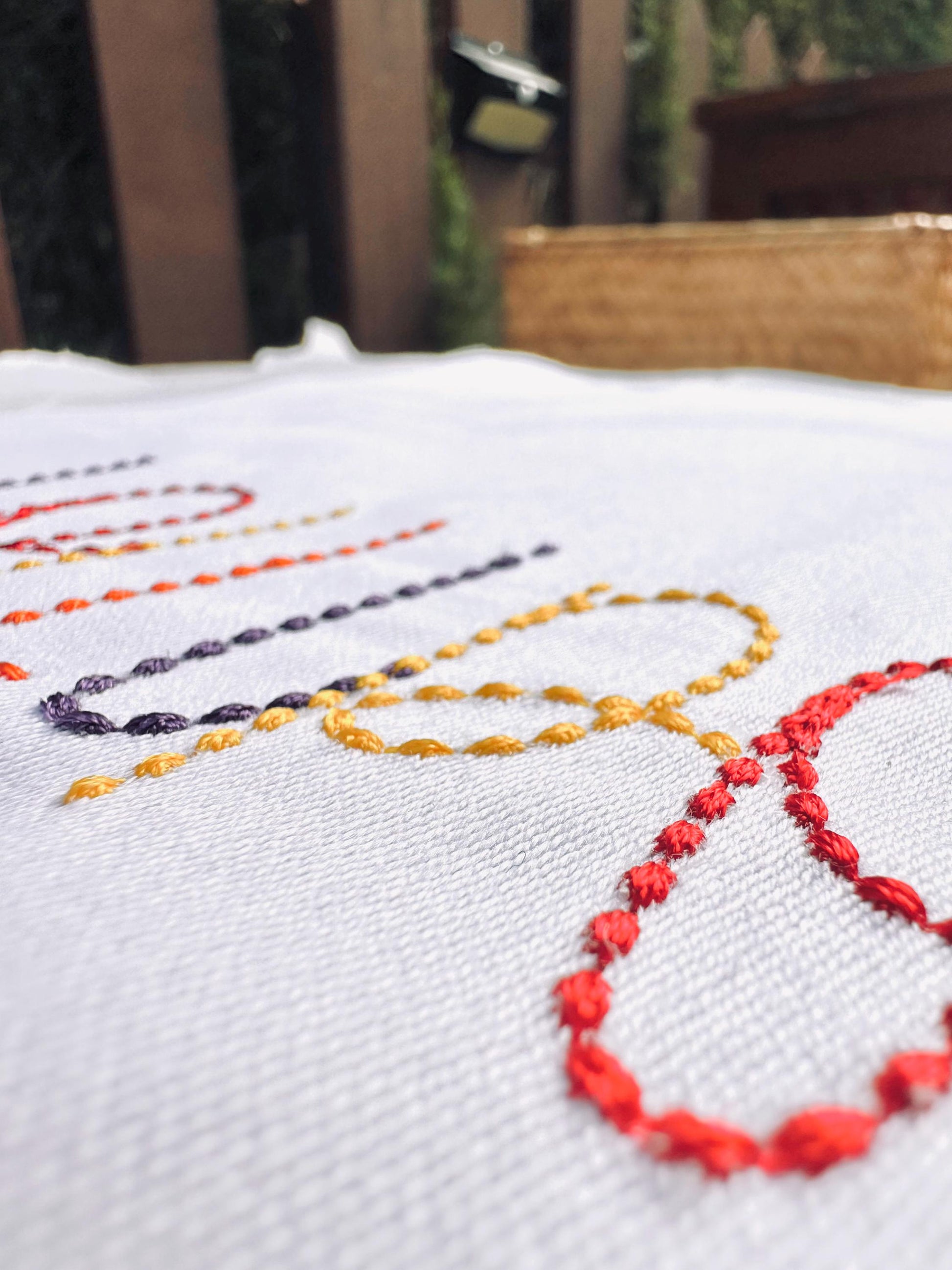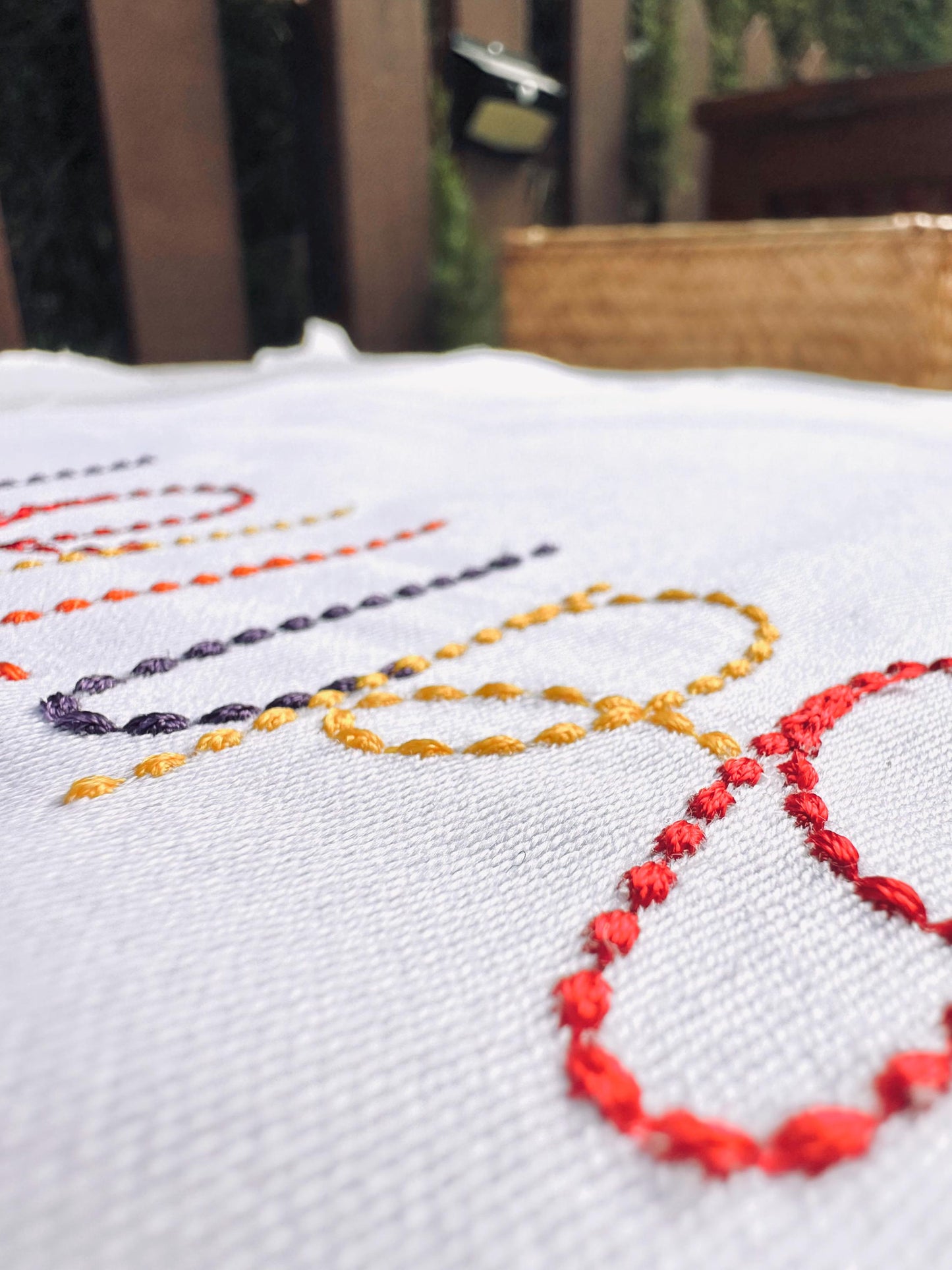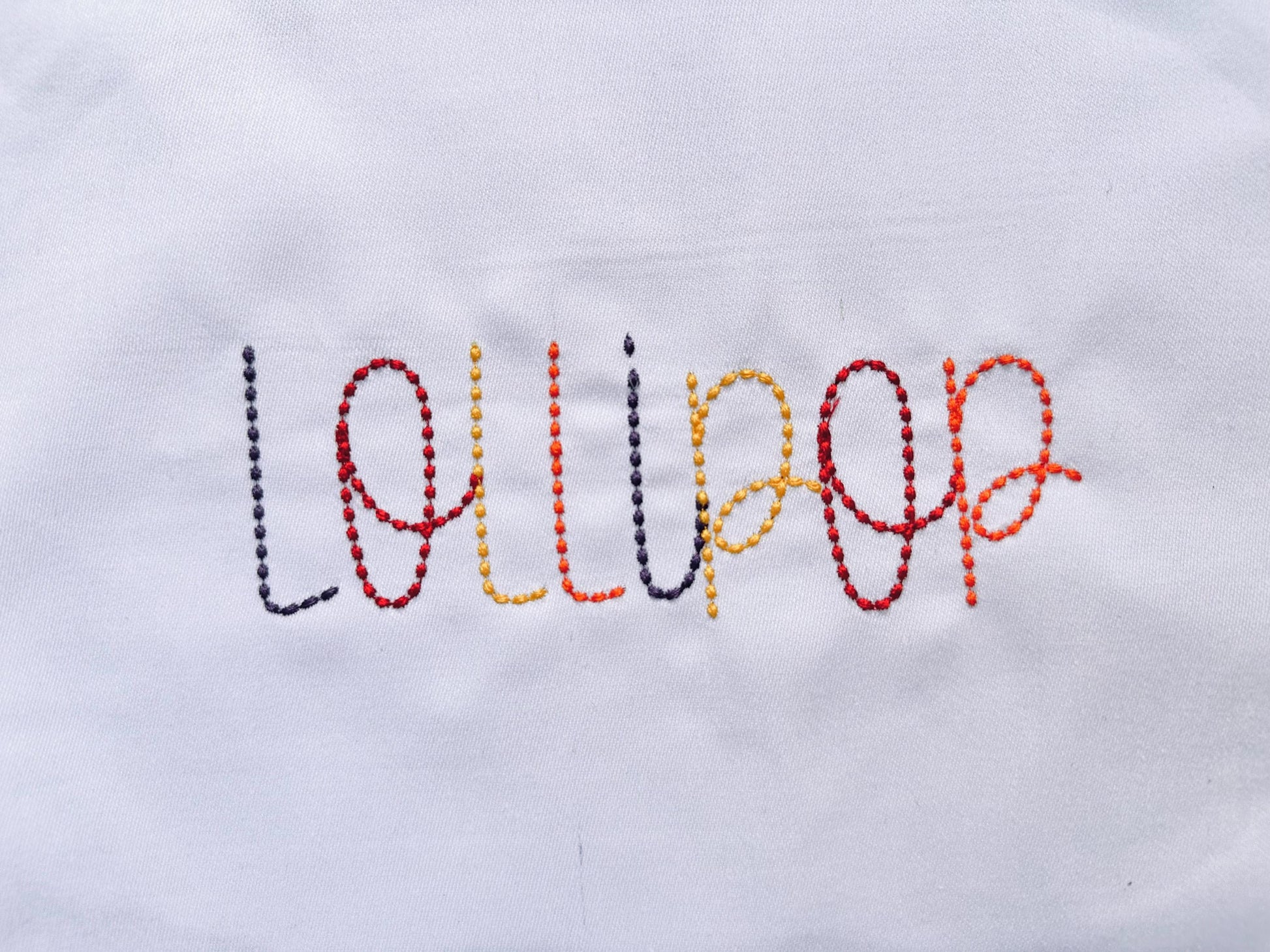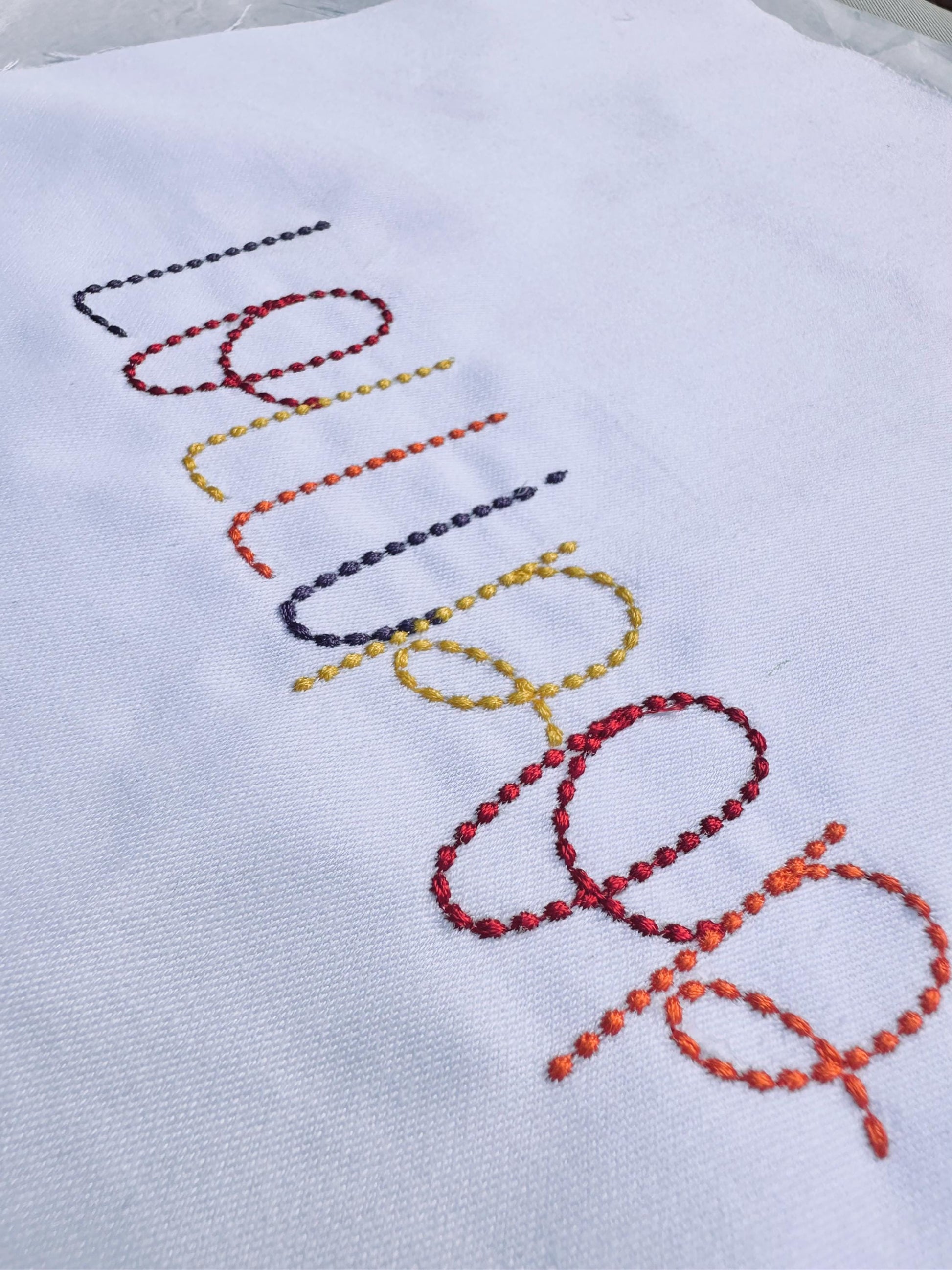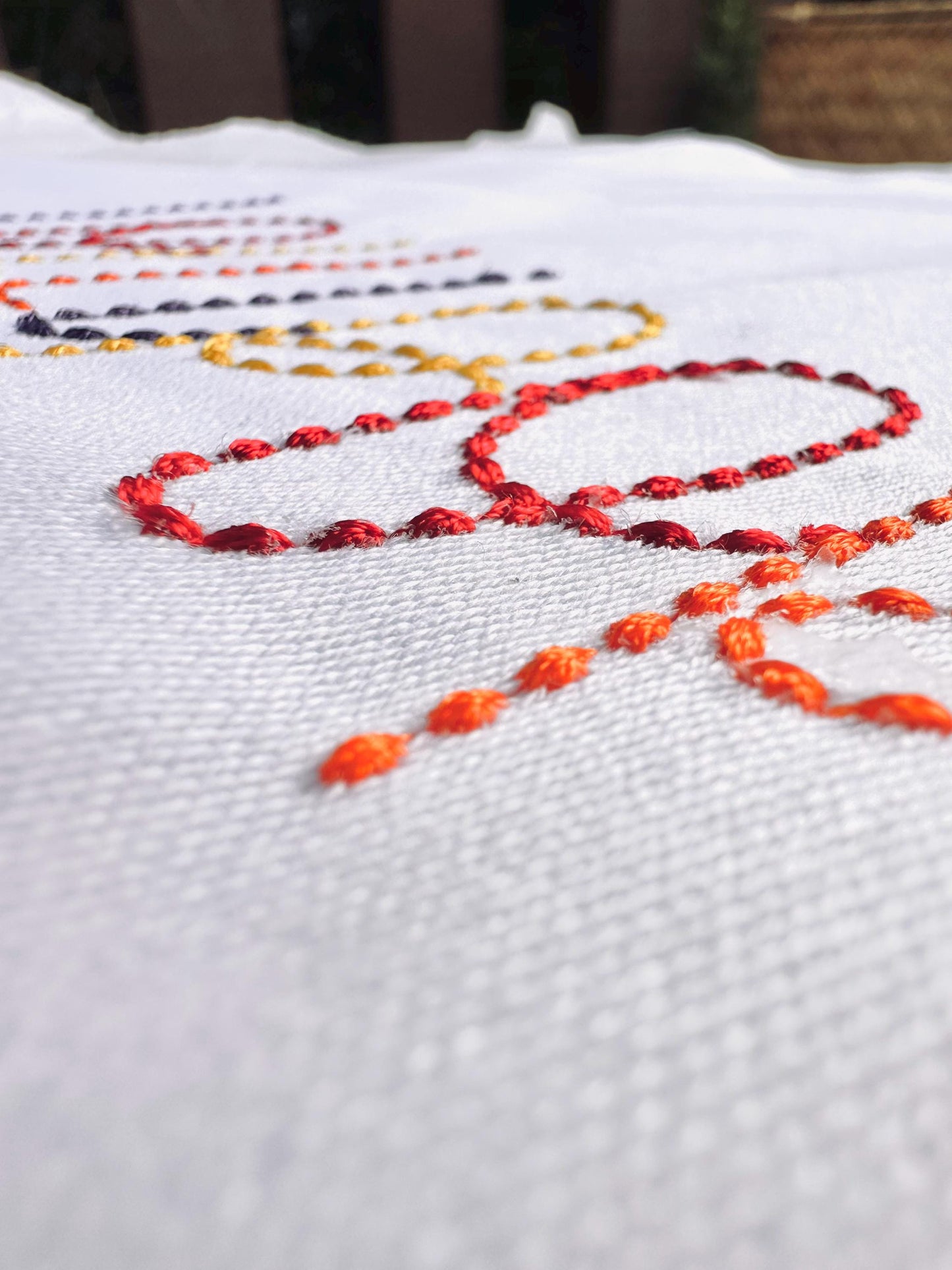
Bean Stitch Thin Line Lollipop Font
Or click to open the linkA thin-line lollipop font in bean stitch with a hand-stitched look. Letters share one height, which makes kids' names easy to line up.
Uppercase and lowercase letters and numbers in six sizes: 1.1, 1.3, 1.6, 2, 2.4 and 2.9 inches.
- Thin-line bean stitch lollipop font
- Uppercase, lowercase, numbers 0-9
- 6 sizes, 1.1 to 2.9 in